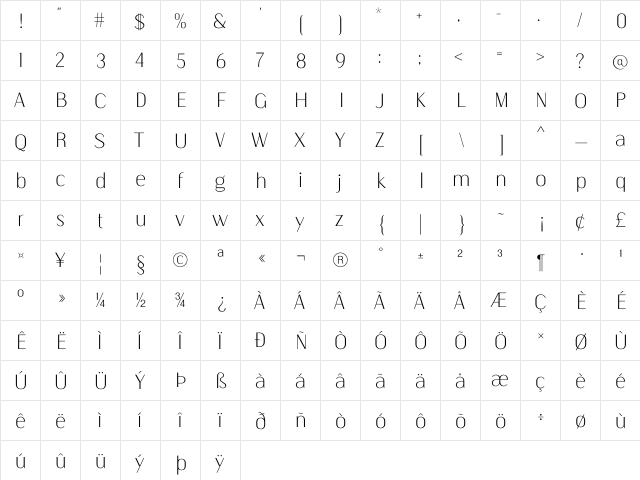
Kiyana Display UltraLight Regular
| Designer | Wahyu S. Adi Wibowo & Sani Sanjaya |
Design Context for Kiyana Display UltraLight Typeface
Kiyana Display UltraLight brings ornamental detail and strong personality to headlines and identities, where visual impact matters more than quiet functionality. The delicate stroke weight brings airiness and refinement to layouts.
Font Pairing: Pair with a clean neutral sans-serif for body copy to let Kiyana Display UltraLight's character lead without overwhelming the composition.
Pro Tip: Use Kiyana Display UltraLight exclusively at display sizes — it was designed to be seen, not read at length. Let a neutral companion handle body copy.